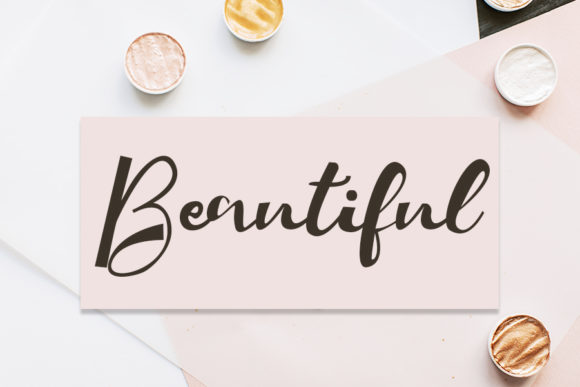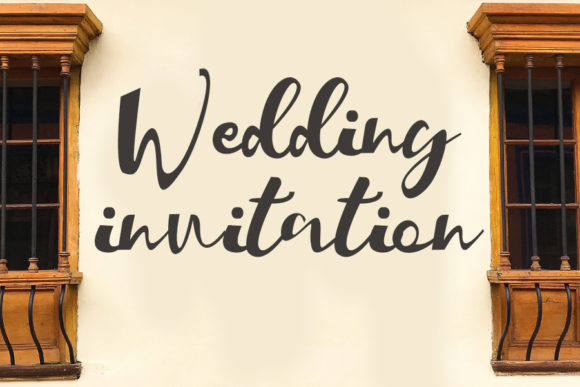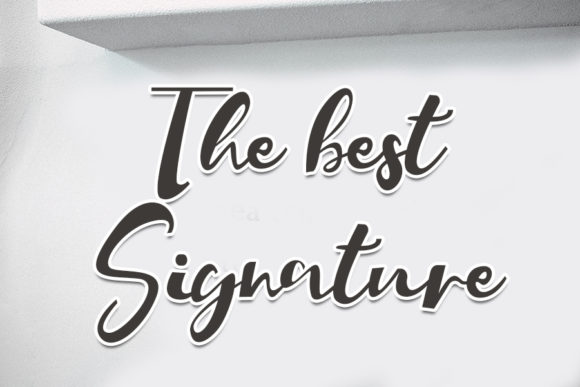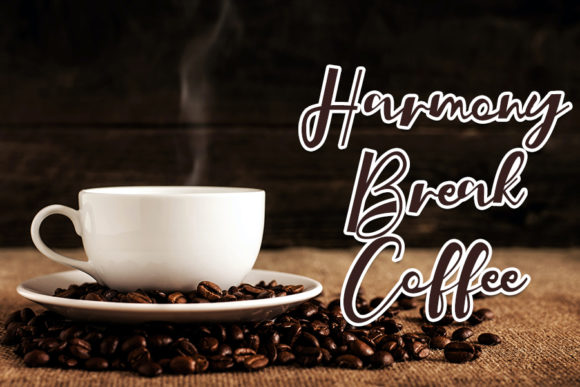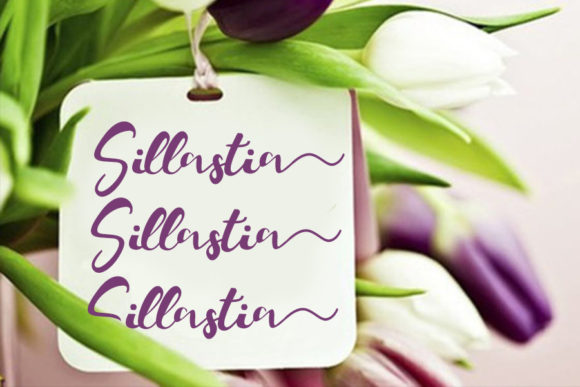
Cinderella Font: The Ultimate Guide to this Enchanting Calligraphy Typeface
Are you a designer or crafter looking for a font that exudes romance and sweetness? Look no further than the Cinderella Font! This beautiful calligraphy typeface is perfect for a variety of projects, from logos and wedding invitations to headings, t-shirts, and more. In this article, we’ll dive into the world of Cinderella Font and explore its features, uses, and benefits.
What is Cinderella Font?
Cinderella Font is a romantic and sweet calligraphy typeface that is characterized by its dancing characters along the baseline. It has a casual, yet elegant touch that makes it perfect for a wide range of applications. The font’s unique design is inspired by traditional calligraphy, with a modern twist that gives it a fresh and contemporary feel.
Features of Cinderella Font
So, what makes Cinderella Font so special? Here are some of its key features:
- Romantic and sweet: Cinderella Font is the perfect choice for projects that require a touch of romance and whimsy.
- Dancing characters: The font’s characters dance along the baseline, creating a sense of movement and fluidity.
- Casual, yet elegant: Cinderella Font strikes the perfect balance between casual and elegant, making it suitable for a wide range of applications.
- Highly versatile: This font can be used for logos, wedding invitations, headings, t-shirts, letterhead, signage, labels, news, posters, badges, and more.
Uses of Cinderella Font
Cinderella Font is an incredibly versatile typeface that can be used for a wide range of projects. Here are some ideas to get you started:
- Wedding invitations: Create beautiful and romantic wedding invitations that set the tone for the big day.
- Logos: Use Cinderella Font to create a unique and memorable logo for your business or brand.
- Headings and titles: Add a touch of elegance to your headings and titles with Cinderella Font.
- T-shirts and apparel: Create custom t-shirts and apparel with Cinderella Font for a unique and stylish look.
- Signage and labels: Use Cinderella Font for signage and labels to add a touch of whimsy and personality.
Benefits of Using Cinderella Font
So, why should you choose Cinderella Font for your next project? Here are some benefits of using this beautiful typeface:
- Unique and memorable: Cinderella Font is a unique and memorable typeface that will help your project stand out from the crowd.
- Easy to read: Despite its elegant and cursive design, Cinderella Font is easy to read and understand.
- Highly versatile: This font can be used for a wide range of applications, making it a great addition to any designer’s toolkit.
- Timeless and classic: Cinderella Font has a timeless and classic design that will never go out of style.
Tips for Using Cinderella Font
Here are some tips for using Cinderella Font effectively:
- Use it sparingly: Cinderella Font is a beautiful typeface, but it can be overwhelming if used too much. Use it sparingly to create a sense of elegance and sophistication.
- Pair it with other fonts: Cinderella Font pairs well with other fonts, such as sans-serif fonts. Experiment with different pairings to find the perfect combination.
- Adjust the size and color: Adjust the size and color of Cinderella Font to create a unique and eye-catching design.
Cinderella Font is a beautiful and versatile typeface that is perfect for designers and crafters looking for a romantic and sweet calligraphy font. With its dancing characters, casual yet elegant design, and highly versatile nature, Cinderella Font is sure to become a favorite in your toolkit. Whether you’re creating wedding invitations, logos, headings, or more, Cinderella Font is the perfect choice.